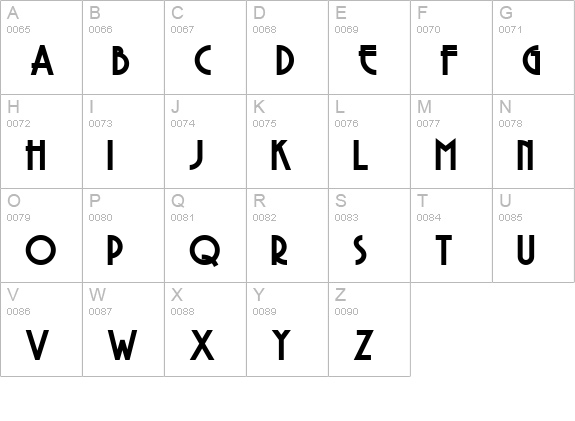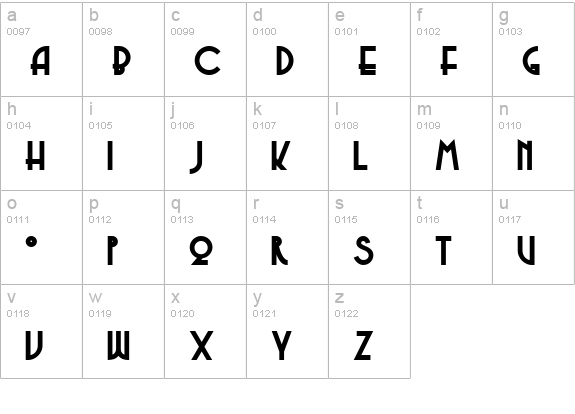
Copasetic NF Bold is a strong, high-contrast variant in the Copasetic typeface family \xE2\x80\x94 well suited to headlines, attention-grabbing titles, and strong calls-to-action.
Copasetic NF Bold font is a modern and bold typeface that exudes confidence and style. With its strong, clean lines and distinctive shapes, this font is perfect for making a statement in your design projects. The thick strokes and sharp angles give Copasetic NF Bold a powerful presence that demands attention. What makes Copasetic NF Bold even more appealing is that it is available for free download at FontsMarket.com. This means you can easily access this striking font and use it in your personal or commercial projects without any cost. Whether you're working on branding, advertising, or graphic design, Copasetic NF Bold will add a touch of sophistication and flair to your work. Don't miss out on the opportunity to enhance your designs with the striking elegance of Copasetic NF Bold font. Download it for free today and elevate your projects to new heights.